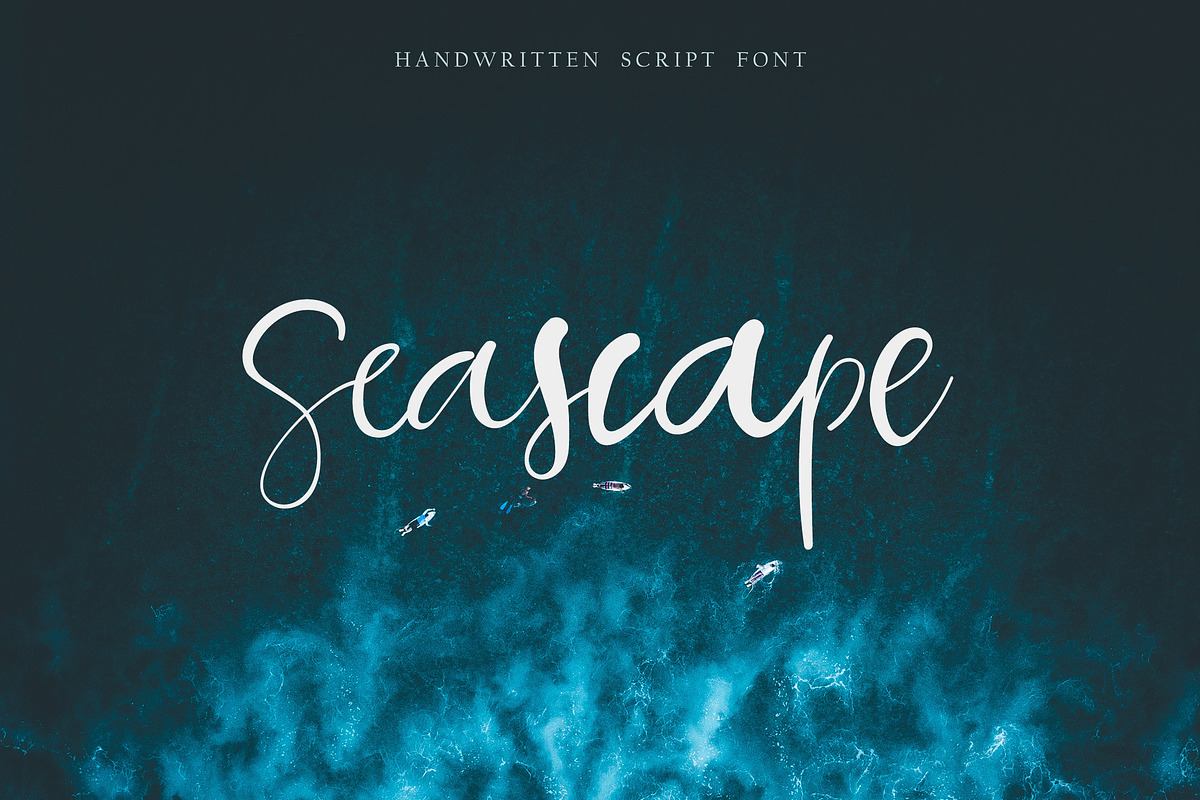
Seascape Script is a free handwritten font designed by Anna Markovets. It includes ligatures and a full set of lowercase alternates, allowing your text to closely resemble natural handwriting. This makes it ideal for branding, wedding invitations, cards, headings, signatures, product packaging, quotes, greeting cards, logos, overlays, and more.